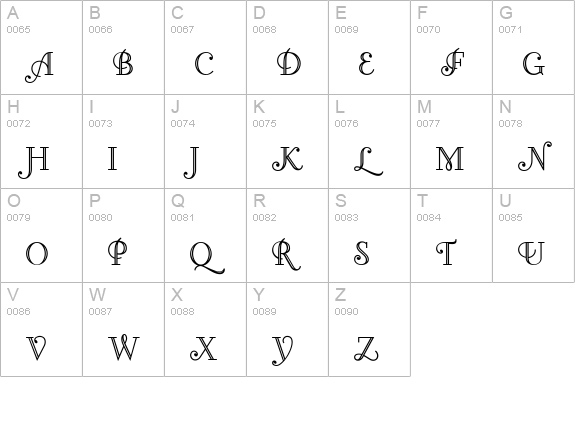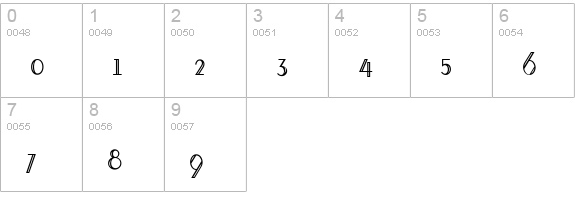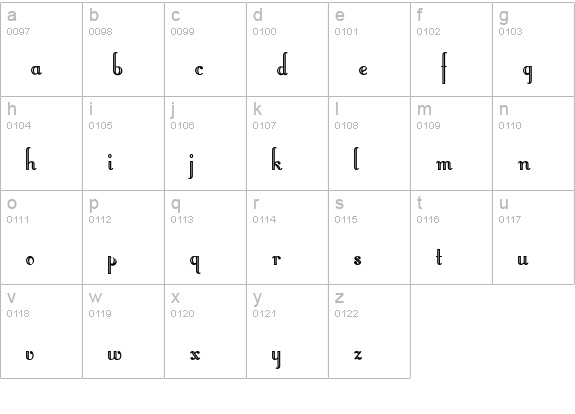
Little Lord Fontleroy NF Font Details
Little Lord Fontleroy NF is a charming and elegant font that exudes a sense of sophistication and class. With its delicate, flowing lines and intricate details, this font is perfect for adding a touch of refinement to any project. Whether you're designing invitations, creating a logo, or crafting a beautiful piece of typography art, Little Lord Fontleroy NF is sure to make a statement. What sets this font apart is not only its timeless beauty but also the fact that it is freely available to download at FontsMarket.com. That's right, you can add this exquisite font to your collection without any cost, making it a valuable asset for any designer or typographer. Embrace the classic charm of Little Lord Fontleroy NF and elevate your designs with its graceful presence.